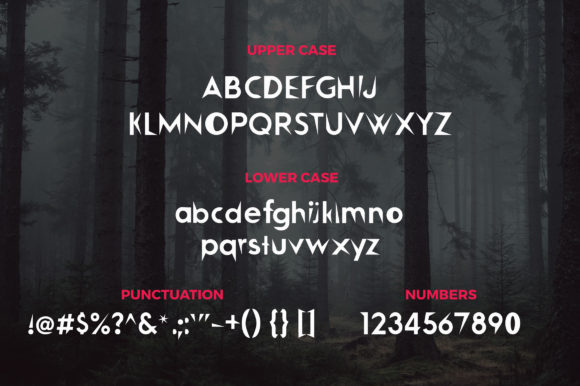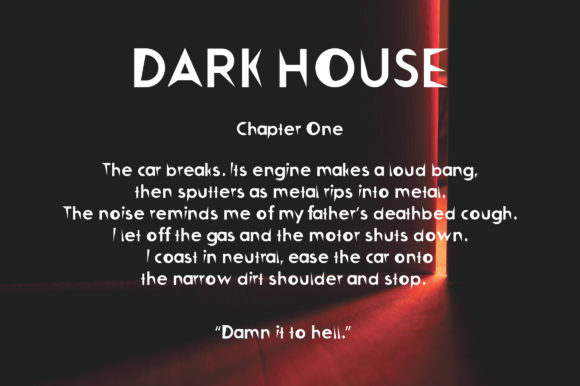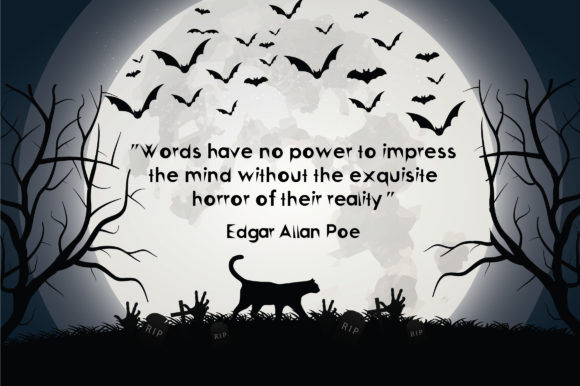
The Perfect Font for a Haunting Design
Have you ever been working on a design project, and just as you’re about to hit publish, you feel a sudden pang of creative doubt? The words on the page seem to stare back at you, taunting you with their blandness. It’s a feeling we’ve all been there, and it’s the perfect moment to break out the big guns – like the Anxiety Premium Font.
This dark and foreboding display font is not for the faint of heart. With its bold, creepy touches, it’s the perfect tool for designers looking to add a little edge to their Halloween projects or scary movie titles. Whether you’re working on a horror-themed website, a spooky graphic novel, or a terrifying trailer, the Anxiety Premium Font is sure to deliver the scares.
- Unique Characteristics: Features a distressed and worn aesthetic, with subtle texture and imperfections that evoke a sense of anxiety and unease.
Review of Anxiety Premium Font
Anxiety Premium Font is an interesting addition to the world of typography. On the plus side, it’s great for creating a sense of tension and unease, which can be perfect for projects that require a dramatic or intense atmosphere ✨. The font’s bold and distressed texture adds to its edgy feel, making it ideal for use in graphic novels, horror movie posters, or other projects that aim to evoke a sense of fear or unease.
Here are some specific strengths of the font:
- It’s incredibly expressive, with a wide range of emotions and moods that can be conveyed through its use.
- The font’s distressed texture adds a level of authenticity and grittiness that can be hard to achieve with other fonts.
- It’s highly customizable, allowing designers to adjust the font’s appearance to fit their specific needs.
However, there are some limitations to consider ⚠️. The font’s intense and dramatic nature may not be suitable for all projects, and it may be overwhelming in certain contexts. Additionally, the font’s distressed texture can sometimes make it difficult to read, particularly at smaller font sizes.
Overall, Anxiety Premium Font is a solid choice for designers who need to create a dramatic or intense atmosphere in their projects. While it may not be suitable for all projects, it’s a great addition to any designer’s toolkit.
Tips for Getting the Most Out of Anxiety Premium Font
Use Anxiety Premium Font to add a touch of sophistication and elegance to your designs.
Pair it with bold, bright colors to create a striking contrast.
Experiment with different font sizes and styles to achieve the perfect balance.
Anxiety Premium Font is perfect for:
Designing luxury branding materials, such as logos and business cards.
Creating high-end marketing materials, such as brochures and flyers.
Adding a touch of sophistication to web design and digital content.
Bebas Neue is a modern sans-serif font ideal for creating a clean and minimalist design. It is a great alternative for headings and titles, especially when you need a font that conveys a sense of sophistication and elegance. Bebas Neue is a more versatile font compared to Anxiety Premium Font, as it offers a wide range of weights and styles that can be used for various design projects.
Abril Fatface is a luxurious and elegant script font perfect for creating a high-end design. It is ideal for use in titles, headings, and other text elements where you want to add a touch of sophistication and glamour. While Anxiety Premium Font has a premium feel, Abril Fatface takes it to the next level with its refined and sophisticated design.
Q: Does the Anxiety Premium Font support Unicode characters and languages?
The Anxiety Premium Font includes a comprehensive Unicode character set, supporting a wide range of languages, including Latin, Cyrillic, Greek, and more. Please consult the font’s documentation for specific language support details.